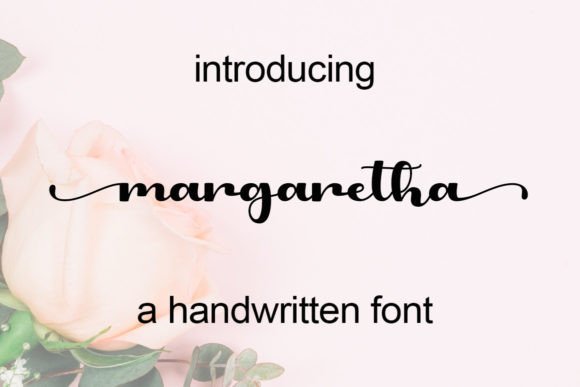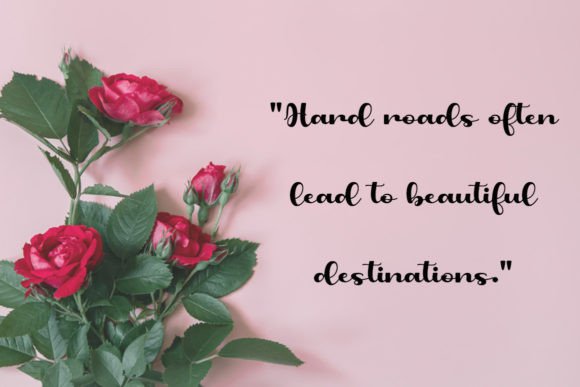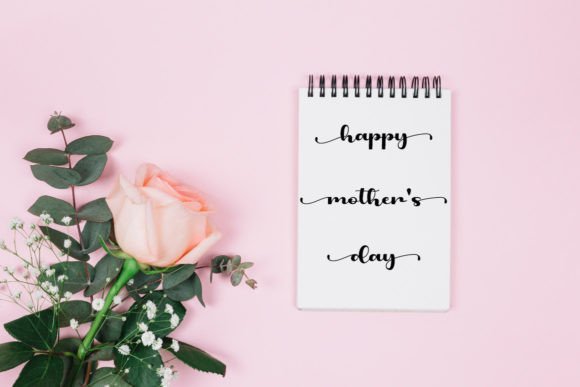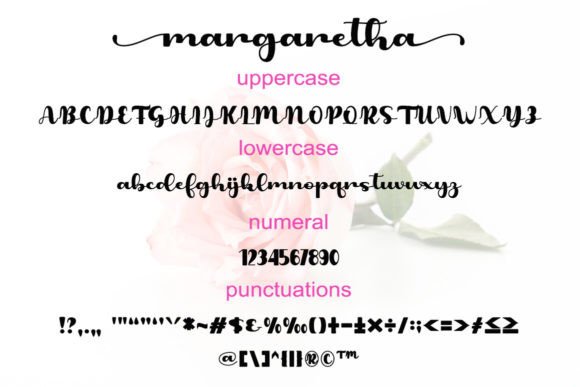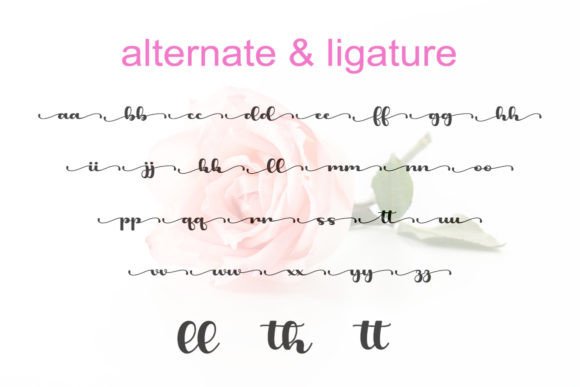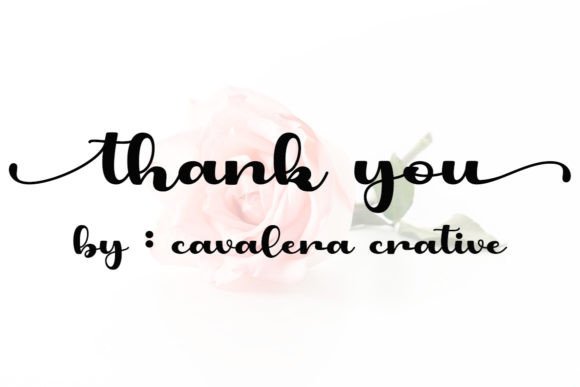
Margaretha Font
About Margaretha Font
**Elevate Your Designs with Margaretha Handwritten Font**
Margaretha is a captivating handwritten font that adds a touch of enchantment to your designs. With its versatility and unique style, Margaretha can be used for a wide range of design applications, making it an invaluable addition to your creative toolkit. Here’s why Margaretha stands out:
**Enchanting Elegance:** Margaretha’s elegant and enchanting style brings a sense of charm and sophistication to your designs. It’s perfect when you want to convey a magical and whimsical vibe.
**Versatile Usage:** This font’s versatility makes it suitable for a wide spectrum of design applications, including greeting cards, headlines, posters, invitations, branding, social media, quotes, and more.
**Greeting Cards:** Create memorable and heartfelt greeting cards for various occasions, from birthdays to weddings. Margaretha adds a personal and enchanting touch to your card designs.
**Headlines:** Make your headlines and titles stand out with Margaretha’s unique and captivating look. Whether it’s for magazines, websites, or promotional materials, this font adds visual interest.
**Posters:** Design eye-catching posters that capture attention and convey your message effectively. Margaretha’s enchanting style adds an element of intrigue to poster designs.
**Invitations:** Craft stunning invitations for special events such as weddings, parties, and celebrations. Margaretha’s elegance sets the tone for a memorable occasion.
**Branding:** Establish a brand identity that’s both enchanting and memorable. Margaretha can be used in logos, branding materials, and packaging to create a distinct visual identity.
**Social Media:** Elevate your social media posts with Margaretha’s whimsical charm. Use it for captions, quotes, and promotional content to engage your audience.
**Quotes:** Transform ordinary quotes into visually appealing statements of wisdom and inspiration. Margaretha adds a touch of enchantment to quote designs.
**Photography:** Enhance your photography projects with Margaretha’s unique style. Whether it’s watermarking your photos or adding text overlays, this font complements visual storytelling.
**Easy Customization:** Access special characters, swashes, and glyphs within the font to customize your designs further. This flexibility allows for creative and unique typographic treatments.
**Emotional Connection:** Margaretha evokes emotions of enchantment, making it ideal for designs that aim to create a magical and whimsical connection with the audience.
**Handcrafted Detail:** The font’s attention to detail and handcrafted quality make it suitable for projects that demand precision and aesthetics.
**Visual Consistency:** Margaretha’s style ensures visual consistency across various design elements, helping you maintain a cohesive and enchanting look.
**Memorable Impact:** With its captivating and enchanting appearance, Margaretha leaves a lasting impact on viewers and readers, making your designs memorable.
Margaretha is more than just a font; it’s a tool for adding enchantment, elegance, and charm to your designs. Whether you’re creating greeting cards, headlines, or branding materials, Margaretha’s unique style sets your work apart and leaves a magical impression.